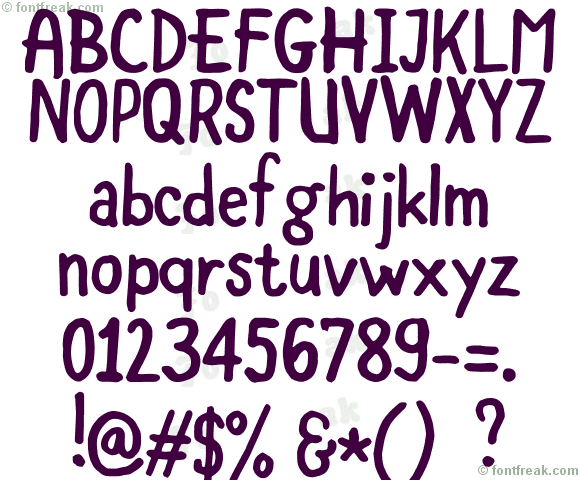
CoolStory regular
The CoolStory regular font, designed by Peter Olexa and released in 2014, is a unique display typeface that captures a playful and informal essence. This font is categorized as a decorative style, characterized by its whimsical, hand-drawn appearance. The stroke weight is moderately thick, giving it a bold presence, while the contrast between the strokes adds a lively flair. The letters feature irregular shapes and spacing, which contribute to its friendly and approachable vibe, making it ideal for creative applications.
CoolStory regular is particularly well-suited for a variety of use cases. It shines in settings such as wedding invitations, where its charming aesthetic can enhance the romantic atmosphere. Additionally, it works beautifully for children’s book covers, adding a sense of fun and imagination. Restaurant menus can also benefit from this font, providing a relaxed yet stylish look that appeals to diners. For social media graphics or blog headers, the font adds a distinct personality that captures attention.
The target audience for CoolStory regular includes graphic designers, small business owners, and content creators looking to infuse their projects with a sense of creativity and warmth. Its versatility makes it a valuable addition to any designer's toolkit, especially for those aiming to engage a youthful or creative demographic.
What sets the CoolStory regular font apart is its ability to communicate a sense of fun while remaining readable. Its unique design elements make it memorable, ensuring that it stands out in a crowded market of typefaces. For anyone interested in adding a touch of personality to their design projects, the CoolStory regular font free download is an excellent choice that will elevate any creative endeavor.